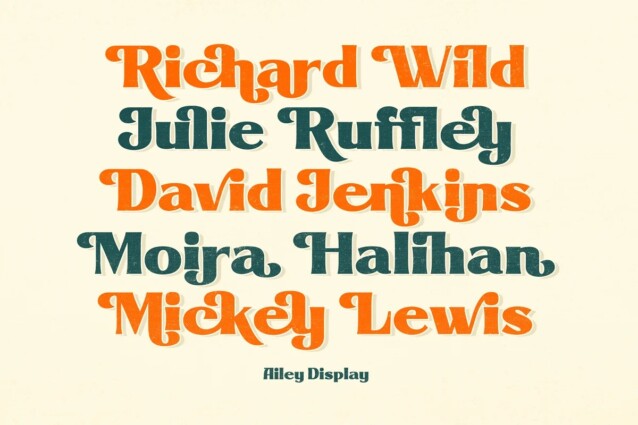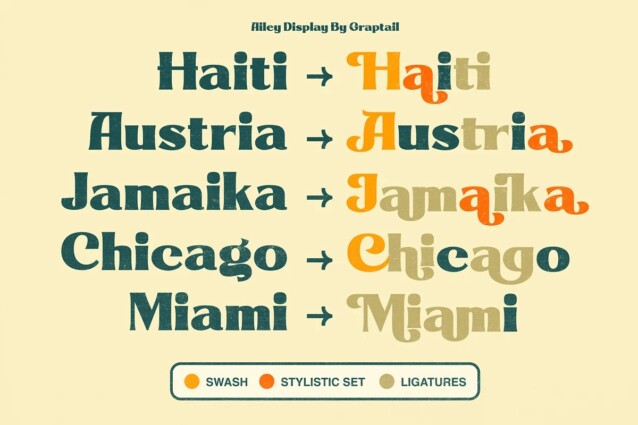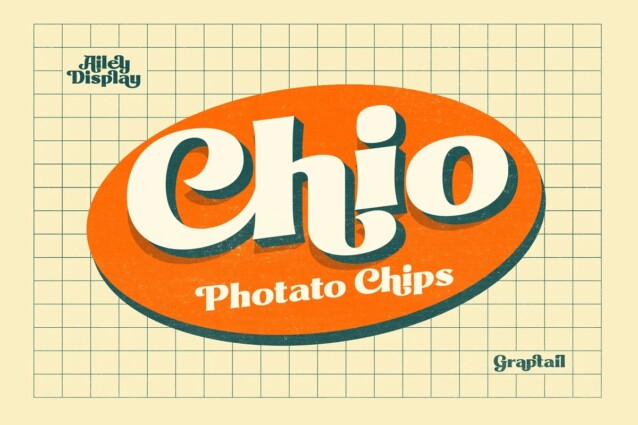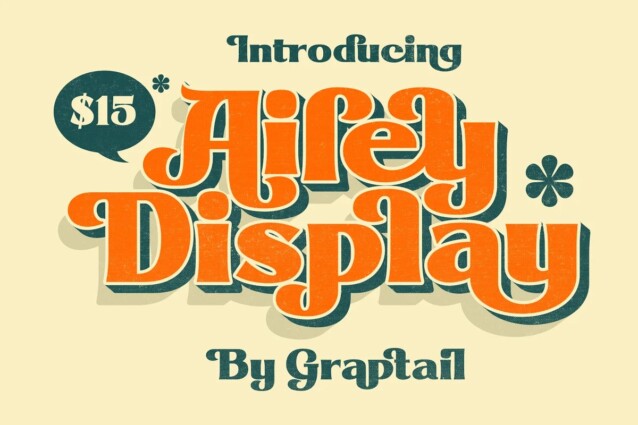
Ailey Font
Ailey Font is a modern classic & beautiful display serif font. It’s designed and shared by Graptail. Each letter is modified so that the distance, width and weight can give the beauty of the alternates given. A passionate curve gives a touch of beauty to this font.